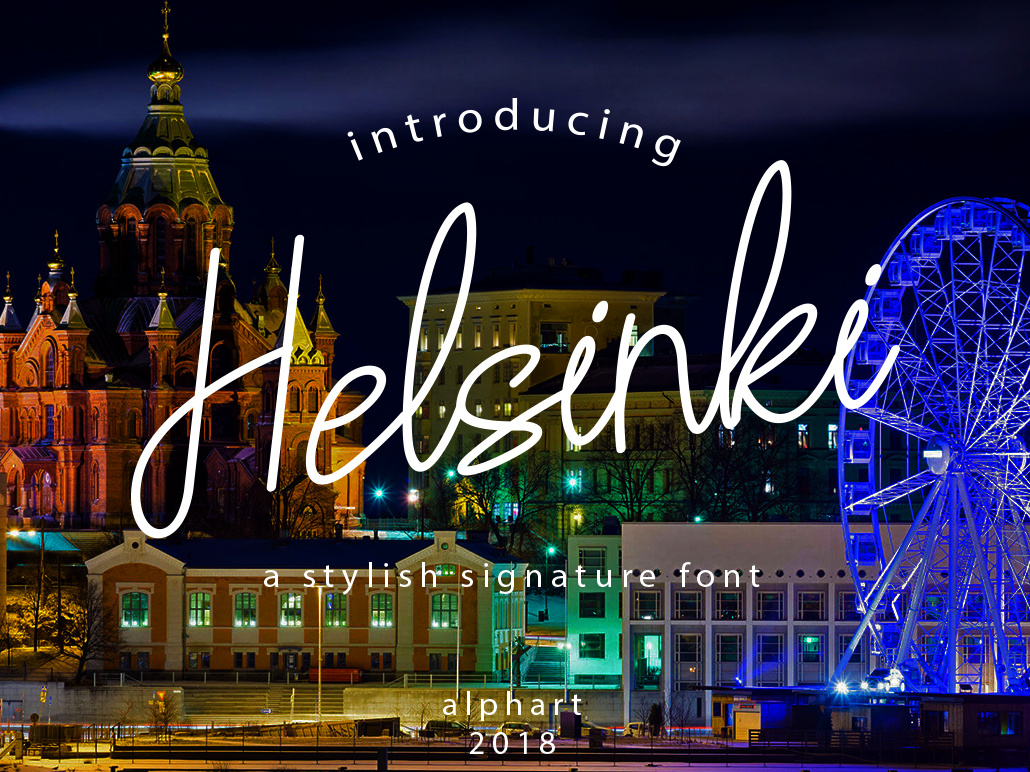
Helsinki a stylish signature font
Hello Gaes! How are you guys ? I'm sure it's very good! Introduce, this is our first product, we call this product Helsinki Font. Helsinki Fonts are modern handwrite, with soft touches and beautiful curves on each letter. it’s perfect for signatures, lettering, logos, and much more!